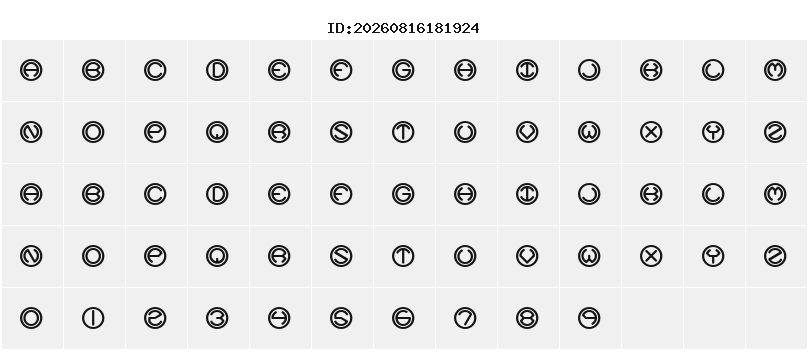
Spheroids BRK Preview
• Font Name: Spheroids BRK
• Full Font Name: Spheroids BRK
About Spheroids BRK.ttf
Spheroids BRK.ttf is a modern, elegant sans-serif font designed for ultimate readability and visual harmony. Perfect for branding, headlines, web design, and print materials.